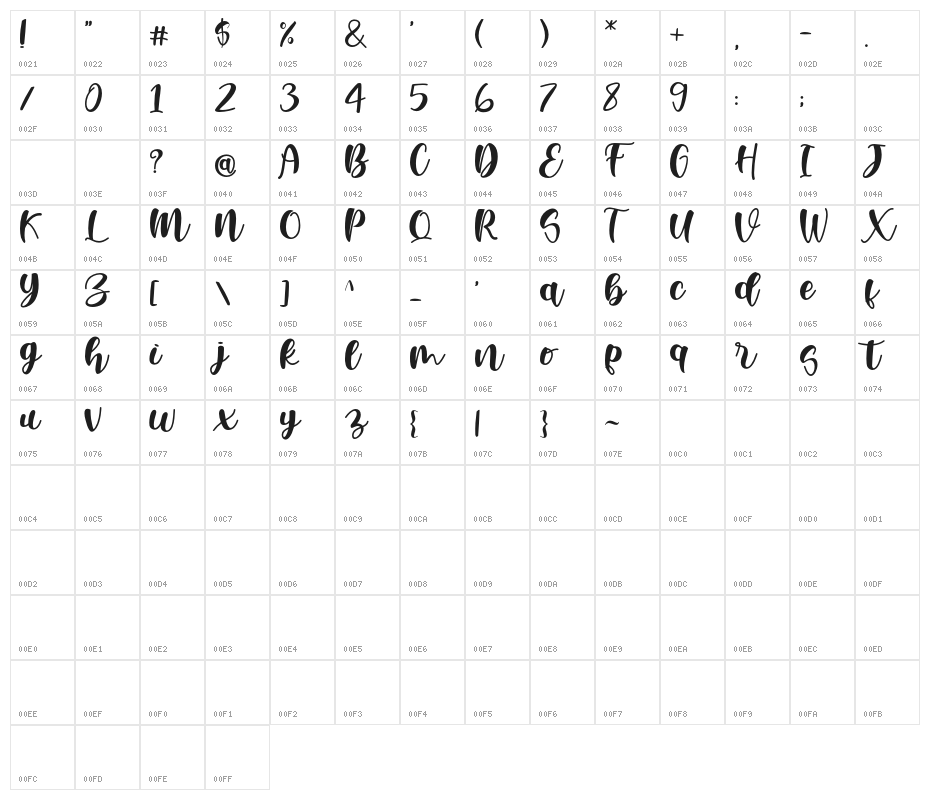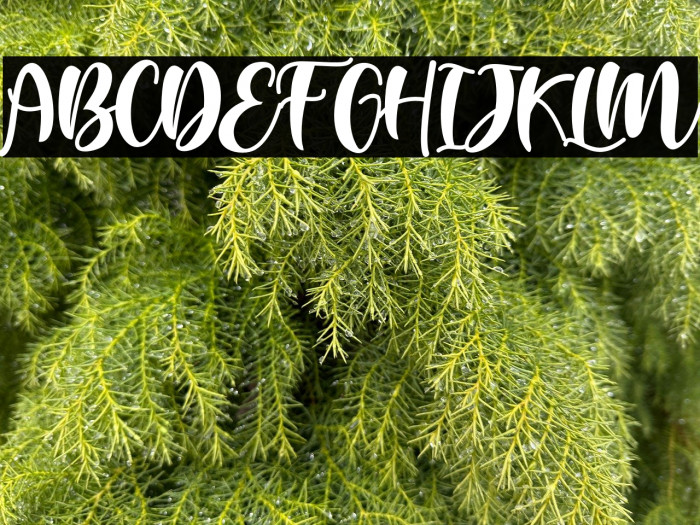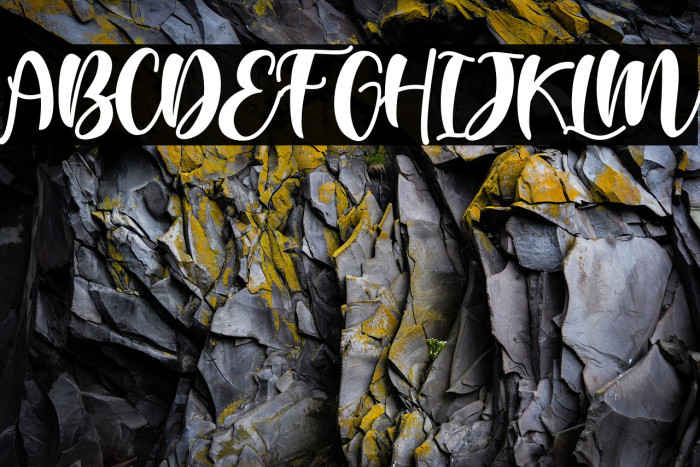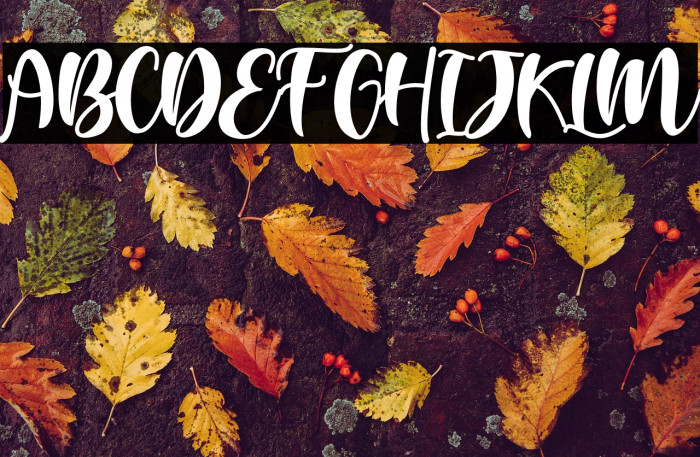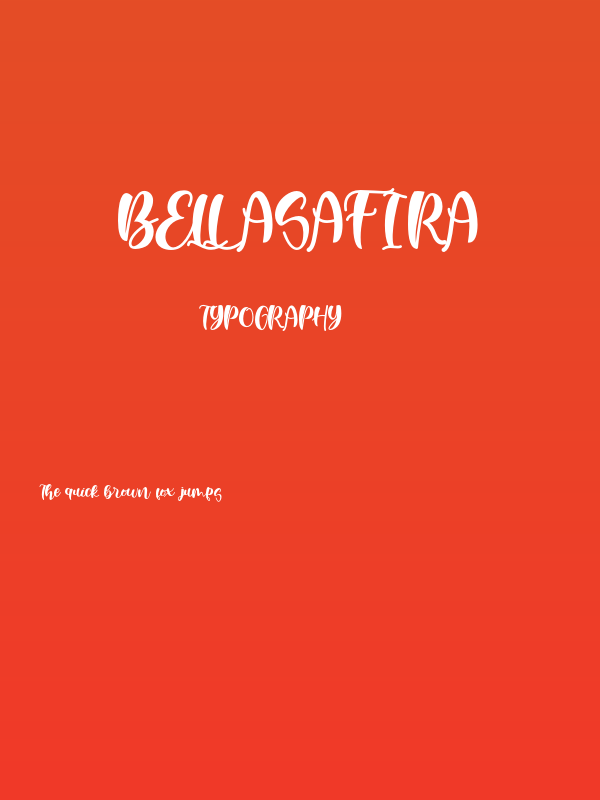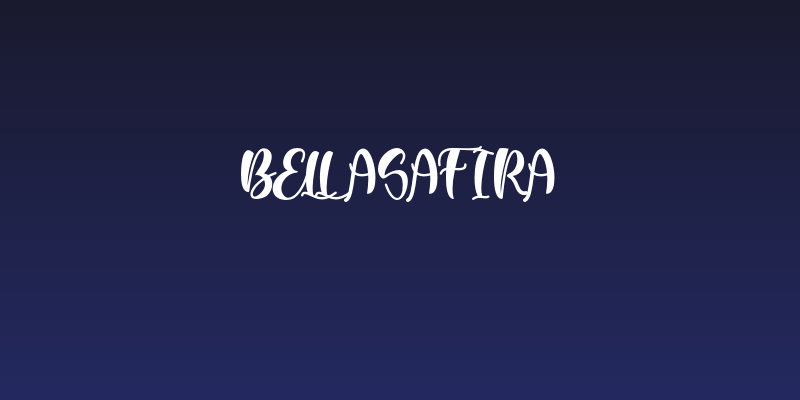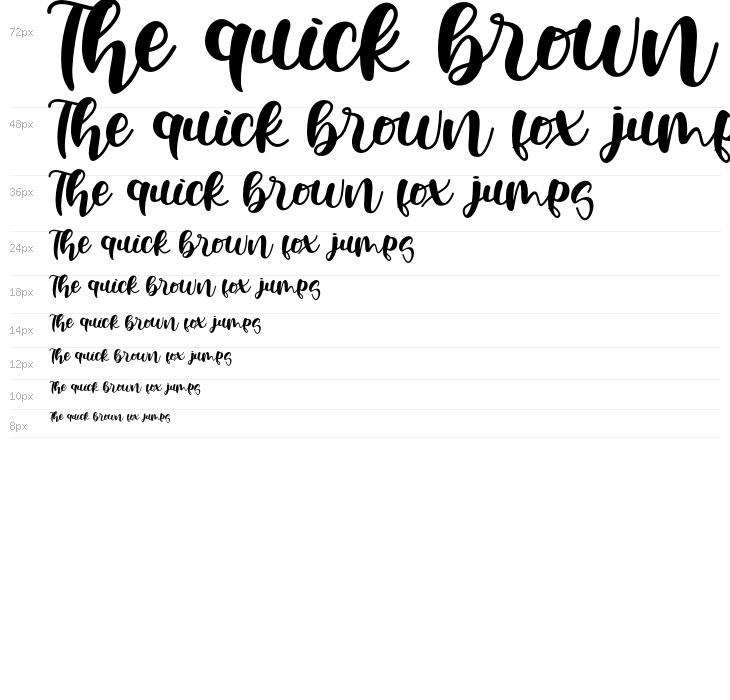
BellaSafira Font
BellaSafira Description
This font features a flowing, cursive style with a bold and expressive character. The letters are interconnected, giving it a handwritten appearance that is both elegant and dynamic. The strokes are thick, with a consistent weight throughout, and the curves are smooth and fluid. This font exudes a sense of creativity and personal touch, making it ideal for projects that require a personal or artistic flair. The numerals and special characters maintain the same stylistic approach, ensuring a cohesive look across all text elements.